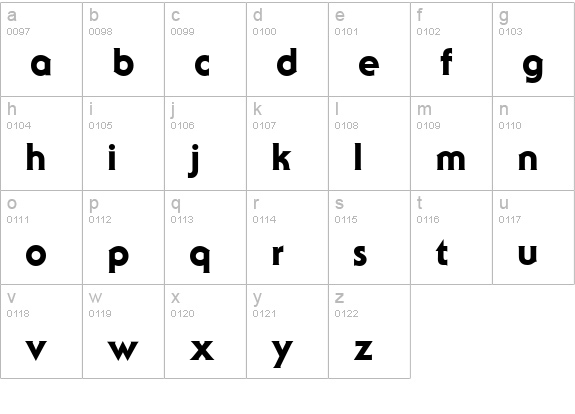
Sebastian-Heavy-Regular is a heavy, high-impact variant in the Sebastian typeface family \xE2\x80\x94 well suited to high-impact headlines, posters, and display advertising.
Sebastian-Heavy-Regular is a versatile and robust font that exudes strength and boldness in every character. With its sleek lines and commanding presence, this font is perfect for making a statement in your designs. Whether used for headlines, logos, or branding materials, Sebastian-Heavy-Regular will not disappoint. The best part? Sebastian-Heavy-Regular is completely free to download at FontsMarket.com. This means you can easily access this powerful font and incorporate it into your projects without any cost. Don't miss out on the opportunity to enhance your designs with this impressive typeface. Download Sebastian-Heavy-Regular today and take your creations to the next level.